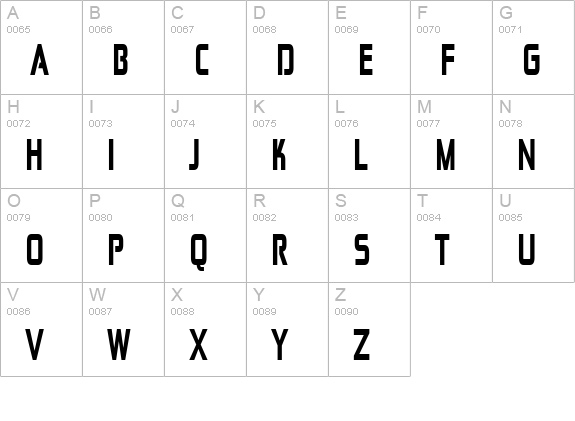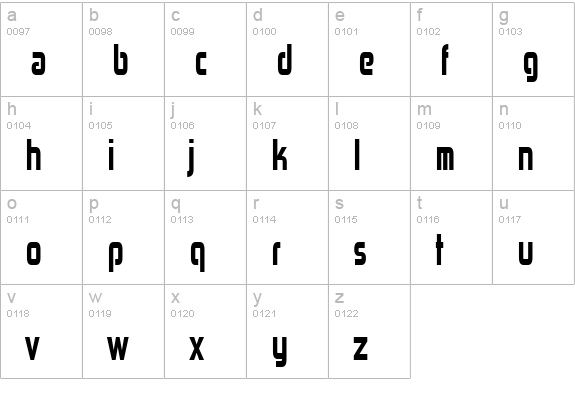
Zekton CdHv Font Details
Zekton CdHv font is a modern and stylish typeface that exudes confidence and professionalism. With its bold strokes and unique design, Zekton CdHv is perfect for making a statement in your designs. Whether you are working on branding, advertising, or any other creative project, this font will surely catch the eye of your audience. The best part about Zekton CdHv font is that it is free to download at FontsMarket.com. This means you can easily access this high-quality font without any cost, making it a great choice for designers on a budget. Don't miss out on the opportunity to add Zekton CdHv to your font collection and elevate your designs to the next level.